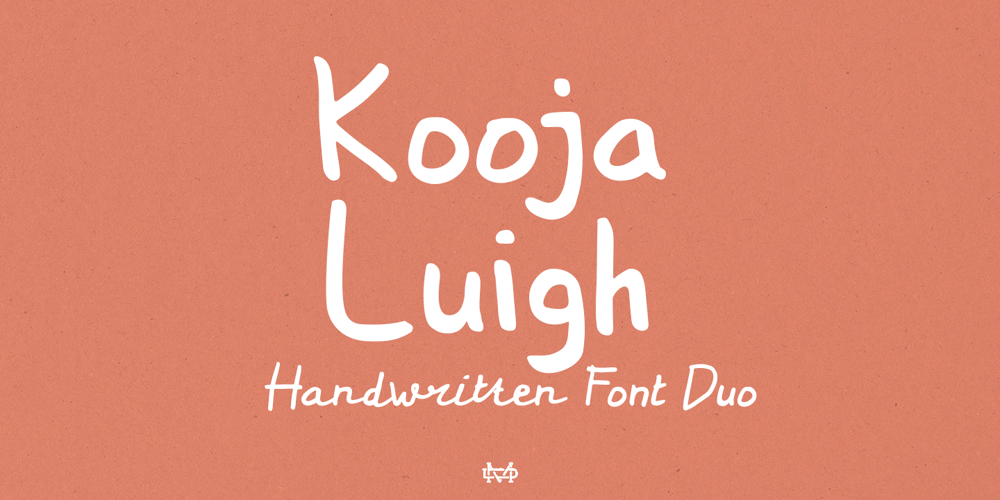
Kooja Luigh Font Family was designed by madededuk and published by madeDeduk. Kooja Luigh contains 2 styles and family package options. Kooja Luigh is a simple casual handwritten font. Kooja Luigh font includes more than 50 ligatures to make everything look natural handmade handwritten. This font perfect for poster design, book covers, merchandise, fashion campaigns, newsletters, branding, advertising, magazines, greeting cards, album covers, and quote designs and more.Feature Uppercase & Lowercase Number & Symbol International Glyphs Multilingual support Ligature Feel free to drop us a message any time and follow my shop for upcoming updatesHope you enjoy it.